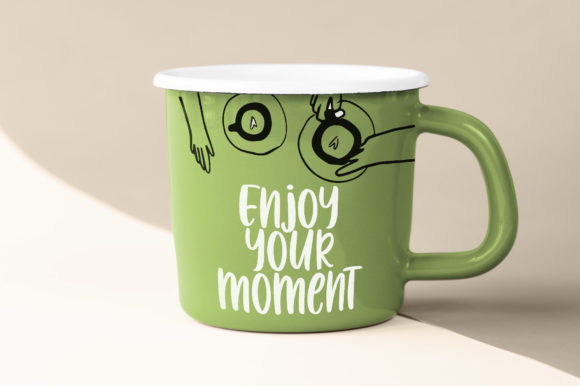
Introducing Fun Frog Font: The Cheeriest Display Font to Elevate Your Creativity
Are you tired of using the same old fonts for your creative projects? Do you want to add a touch of whimsy and fun to your designs? Look no further than the Fun Frog Font, a charming and playful display font that’s sure to make your ideas stand out. In this article, we’ll dive into the world of Fun Frog Font, exploring its features, benefits, and uses, as well as provide tips on how to make the most of this delightful font.
What Makes Fun Frog Font So Special?
Fun Frog Font is a one-of-a-kind display font that boasts a range of charming characters, each one carefully crafted to bring a smile to your face. This font is perfect for designers, artists, and crafters looking to add a dash of personality to their work. With its unique and quirky style, Fun Frog Font is sure to capture the attention of your audience and leave a lasting impression.
- Cheery and Fun Design: Fun Frog Font features a bright and cheerful design that’s perfect for creating eye-catching headlines, titles, and slogans.
- Charming Characters: Each character in the Fun Frog Font is carefully crafted to showcase a playful and whimsical style, making it perfect for use in a variety of creative projects.
- Display Font: Fun Frog Font is specifically designed as a display font, making it perfect for use in titles, headings, and other prominent text elements.
How to Use Fun Frog Font in Your Creative Projects
Fun Frog Font is a versatile font that can be used in a wide range of creative projects, from digital designs to print materials. Here are just a few ideas to get you started:
- Branding and Logo Design: Use Fun Frog Font to create a memorable and eye-catching logo for your business or brand.
- Social Media Graphics: Add a touch of fun and personality to your social media graphics, such as Facebook posts, Instagram stories, and Twitter headers.
- Invitations and Party Decor: Use Fun Frog Font to create custom invitations, banners, and party decorations that are sure to delight your guests.
- Digital Art and Illustrations: Incorporate Fun Frog Font into your digital art and illustrations to add an extra layer of personality and whimsy.
Tips for Getting the Most Out of Fun Frog Font
To make the most of Fun Frog Font, here are a few tips to keep in mind:
- Use it Sparingly: While Fun Frog Font is a delightful font, it’s best used sparingly to avoid overwhelming your design. Use it for headings, titles, and key text elements to create visual interest.
- Pair it with Other Fonts: Experiment with pairing Fun Frog Font with other fonts to create a unique and visually appealing combination.
- Experiment with Colors: Fun Frog Font looks great in a range of colors, so don’t be afraid to experiment and find the perfect hue to match your brand or design.
The Benefits of Using Fun Frog Font
So why choose Fun Frog Font for your creative projects? Here are just a few benefits of using this delightful font:
- Unique and Memorable: Fun Frog Font is a one-of-a-kind font that’s sure to make your designs stand out and be remembered.
- Easy to Read: Despite its playful design, Fun Frog Font is easy to read and understand, making it perfect for use in a variety of applications.
- Versatile: Fun Frog Font can be used in a wide range of creative projects, from digital designs to print materials.
In conclusion, Fun Frog Font is a cheery and fun display font that’s perfect for adding a touch of whimsy and personality to your creative projects. With its charming characters, unique design, and versatility, this font is sure to become a favorite in your design toolkit. So why not give Fun Frog Font a try today and see how it can elevate your creativity?